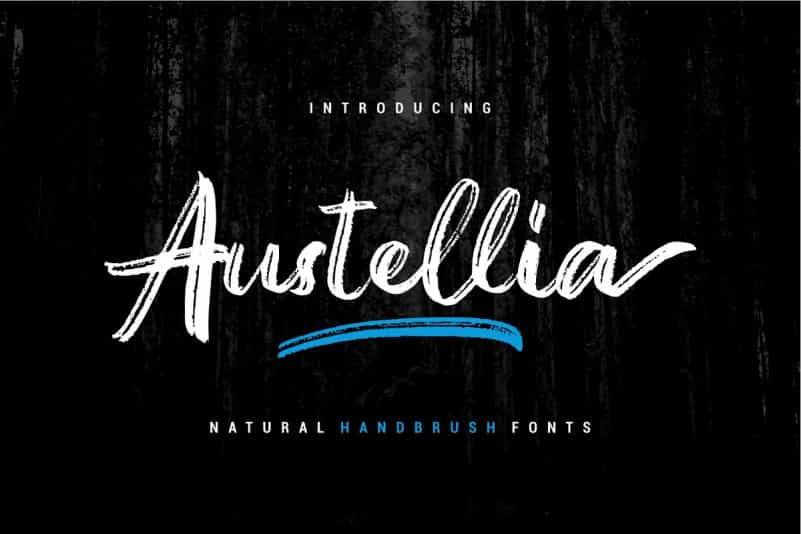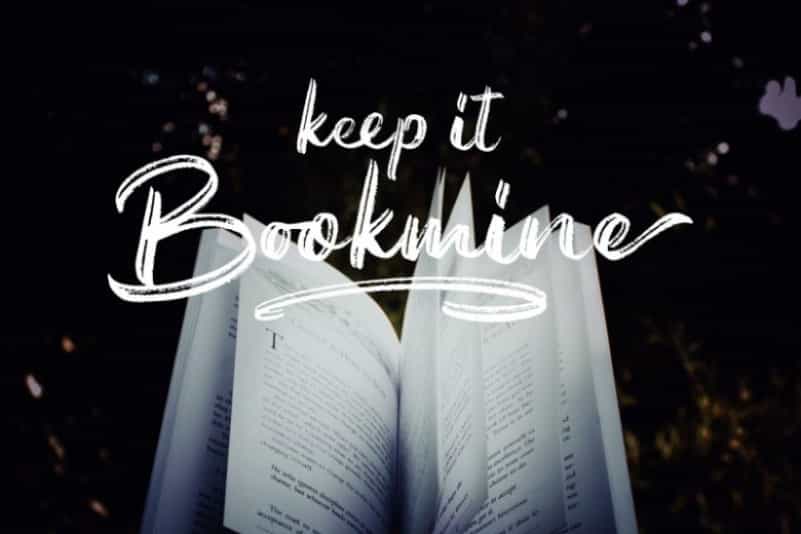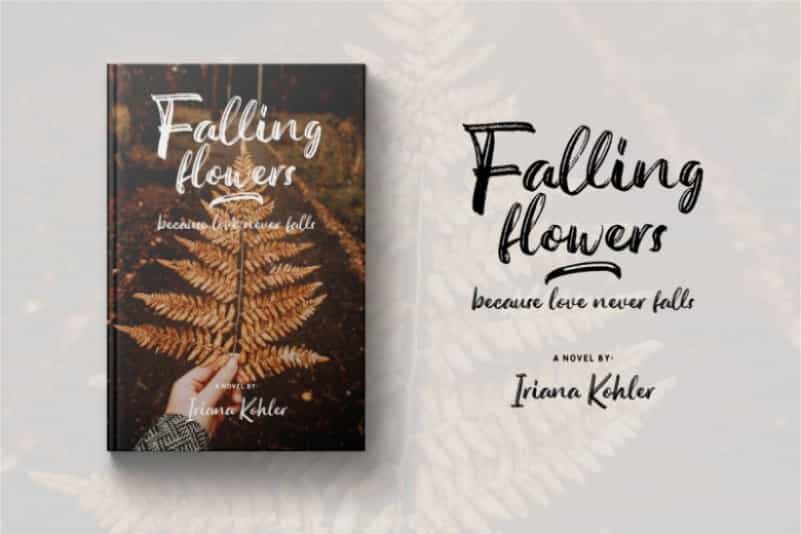
Introducing the new product Austellia Brush Font, our company is happy to present it!It is created and distributed by Garisman Std. Austellia Handbrush Font is a font created with the use of natural hand brushes. The Opentype with the unique ligature in it will be a great addition to your design product. Contained in this file are the Austellia Fonts and also Swash which you can blend to create an amazing design.